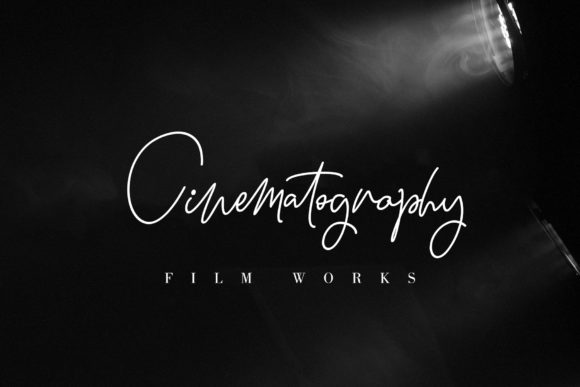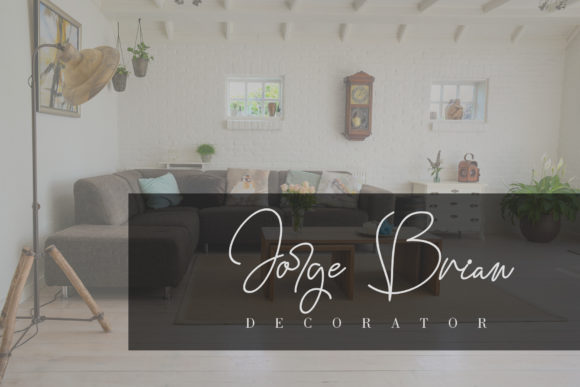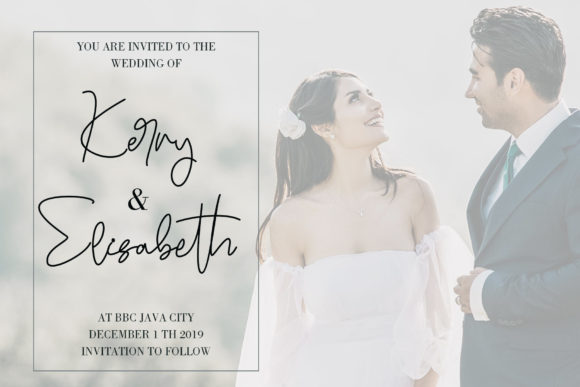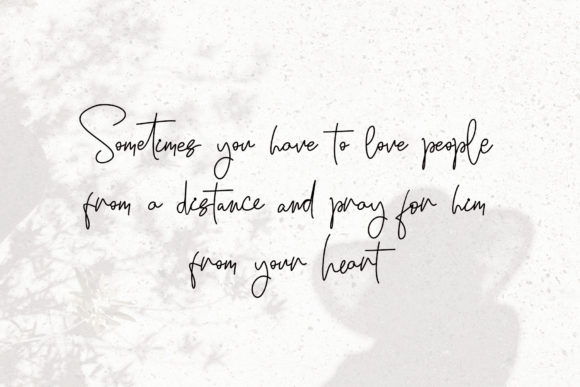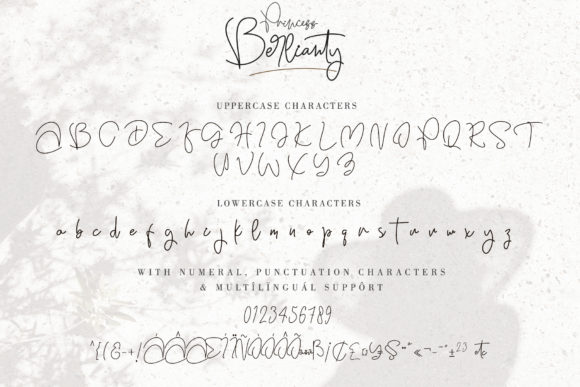
About Princess Berlianty Font
Princess Berlianty is a new modern calligraphy monoline script font. It has a classic and elegant touch and can be used for various purposes such as headings, logos, invitations, t-shirt designs, greeting cards, posters, labels, book covers, and many more ideas!